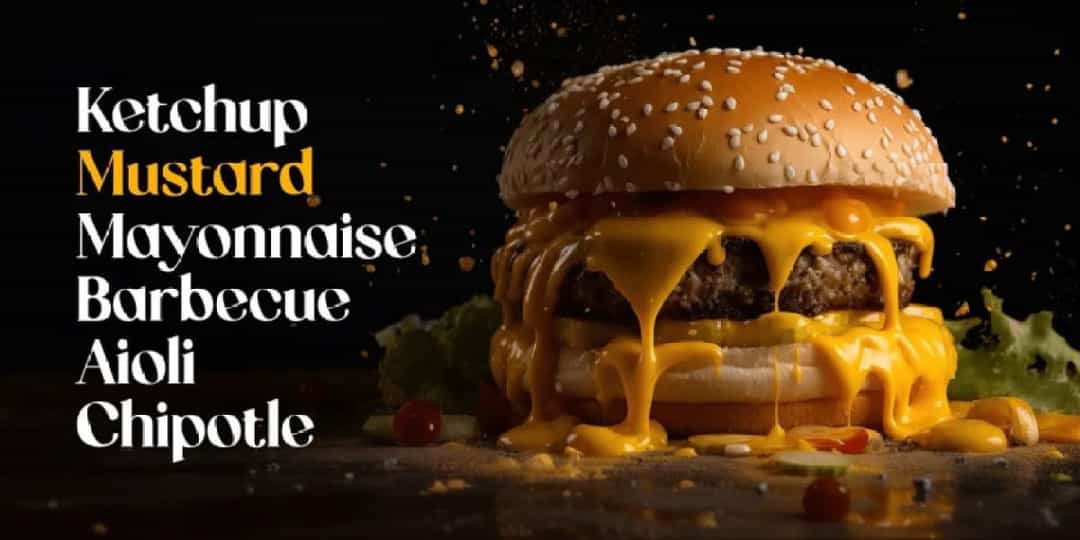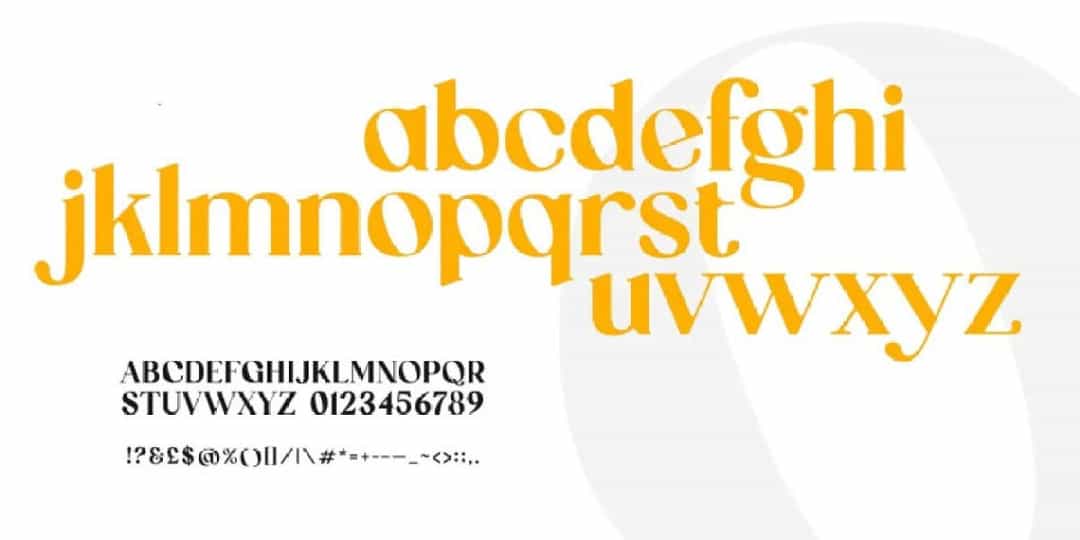
The Quaint Mongoose Font is an exceptional show serif typeface. With its distinct and appealing appearance, combining classic aesthetics with contemporary design elements. Furthermore, with its eccentric letterforms that add flair and individuality to any design project, The Quaint Mongoose adds character and adds some fun into any design project.